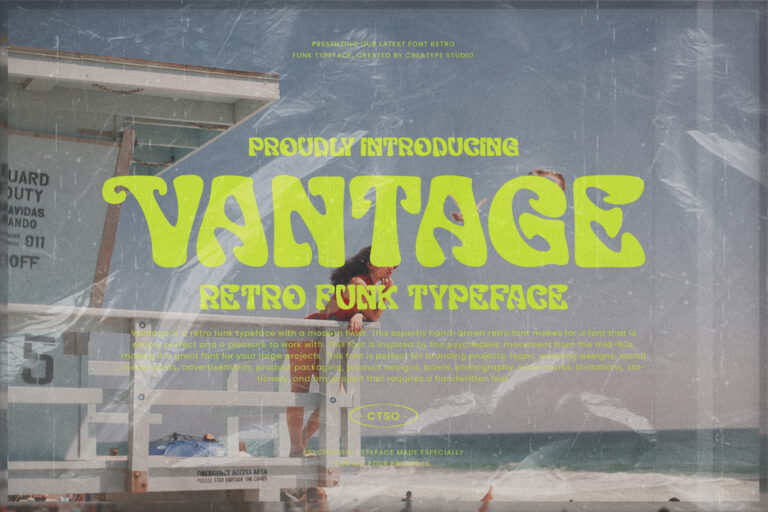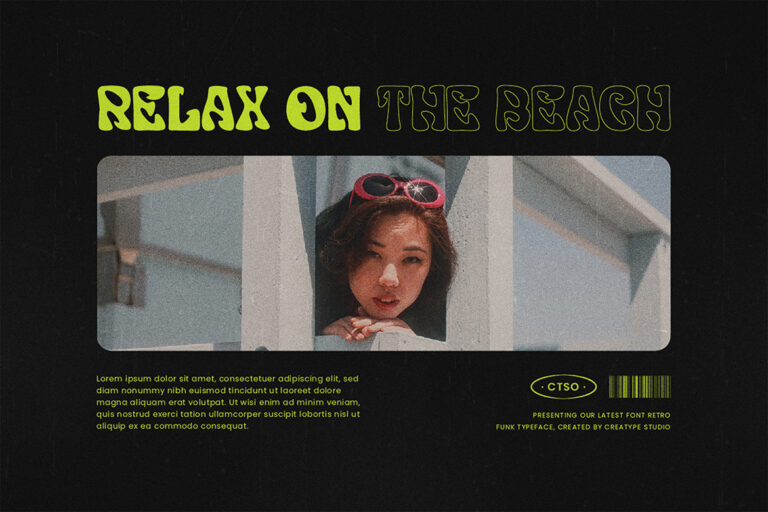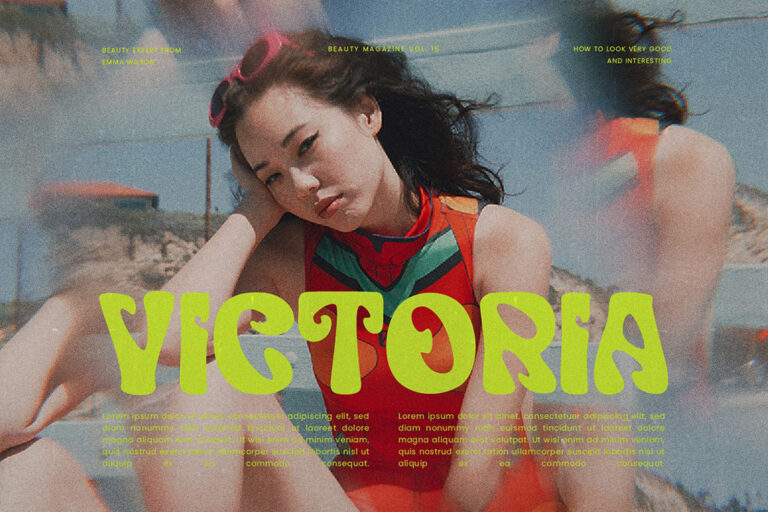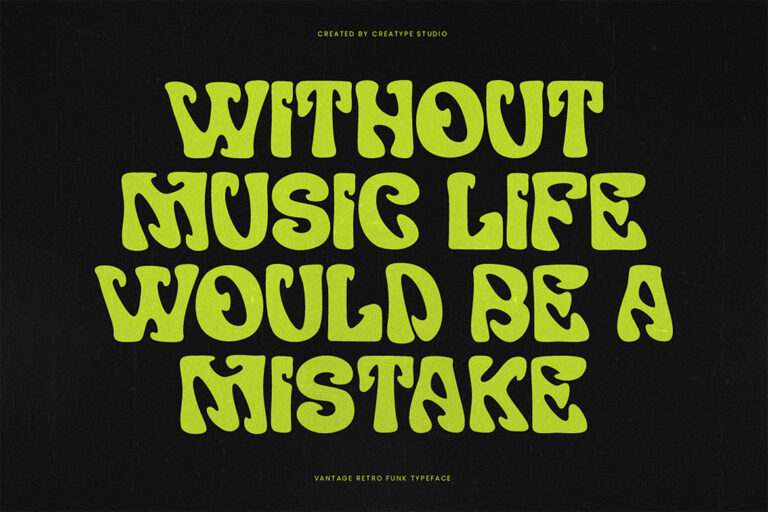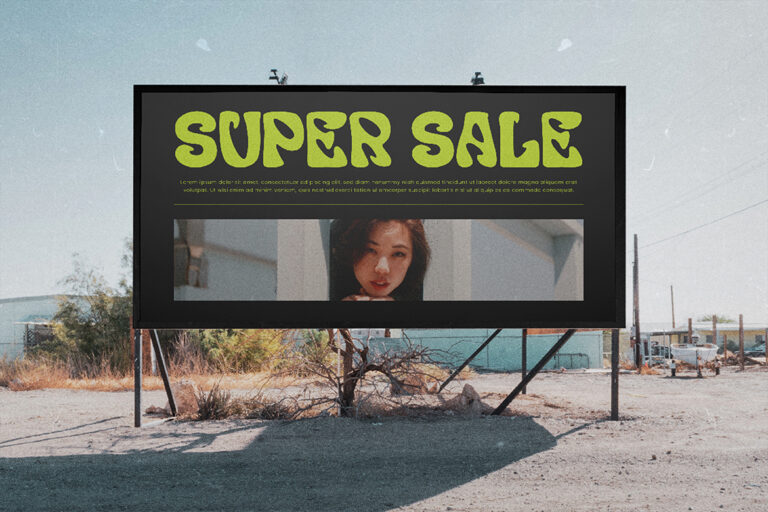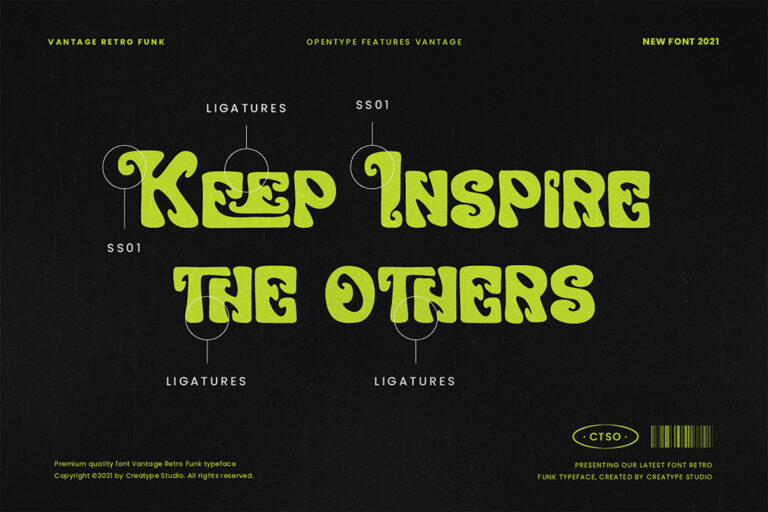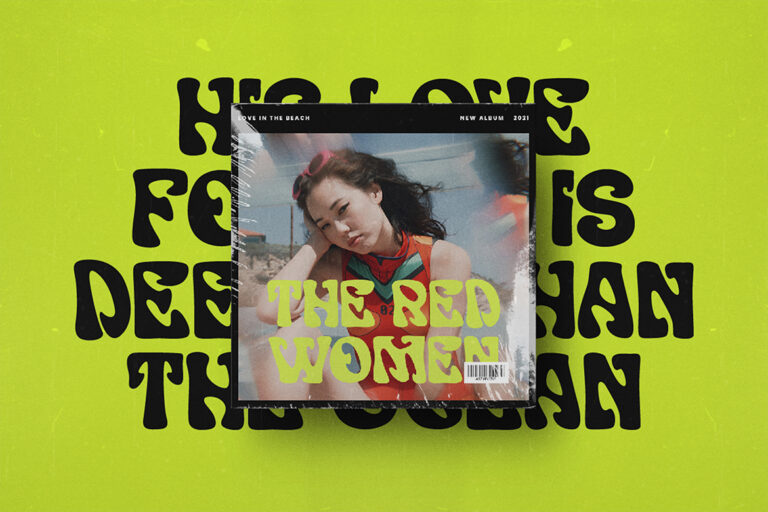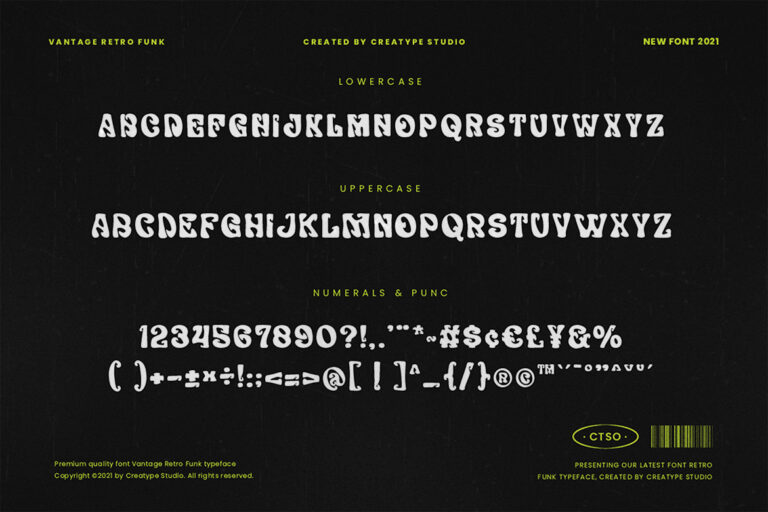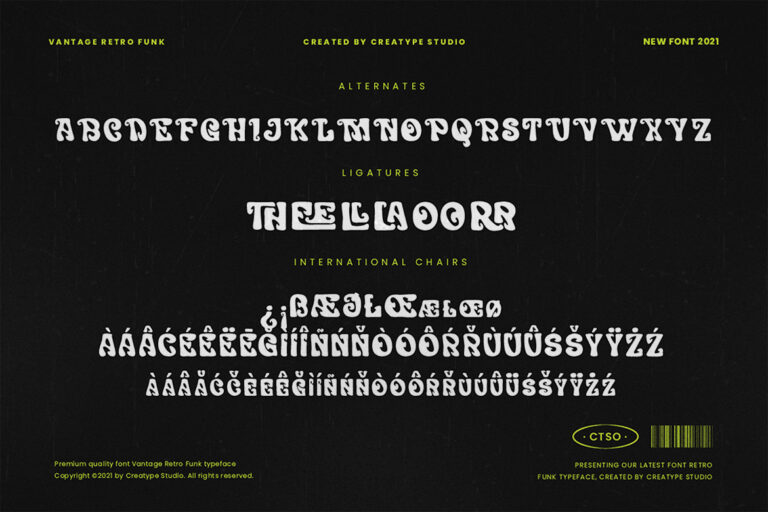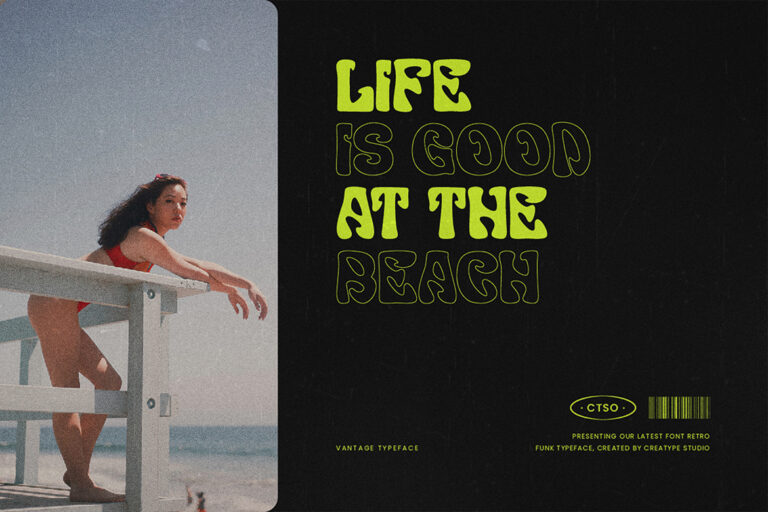
Vantage is a retro funk typeface with a modern twist. This expertly hand-drawn retro font makes for a font that is simply perfect and a pleasure to work with. This font is inspired by the psychedelic movement from the mid-60s, making it a great font for your large projects.
Vantage is perfect for branding projects, logo, wedding designs, social media posts, advertisements, product packaging, product designs, label, photography, watermark, invitation, stationery and any projects that need handwriting taste.
Vantage Retro Funk